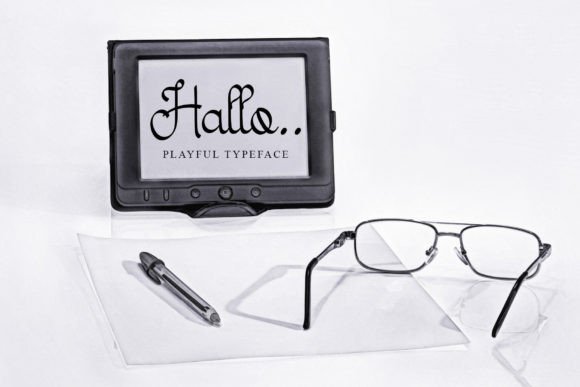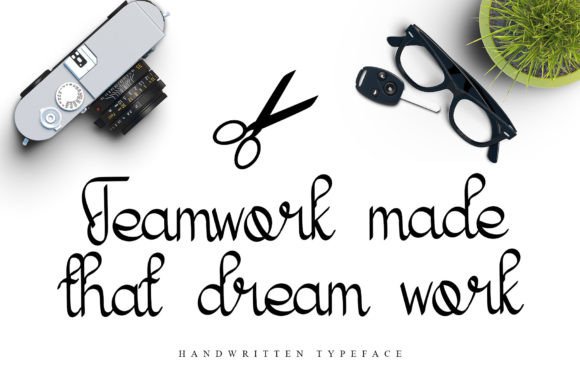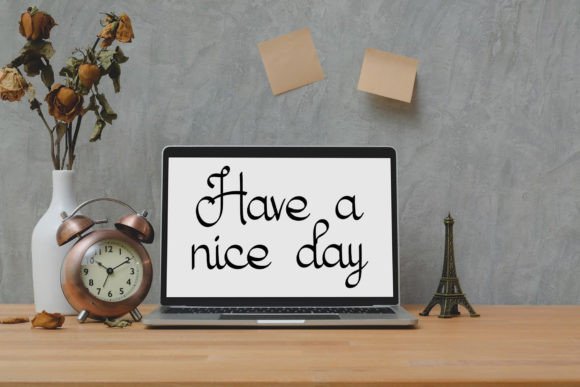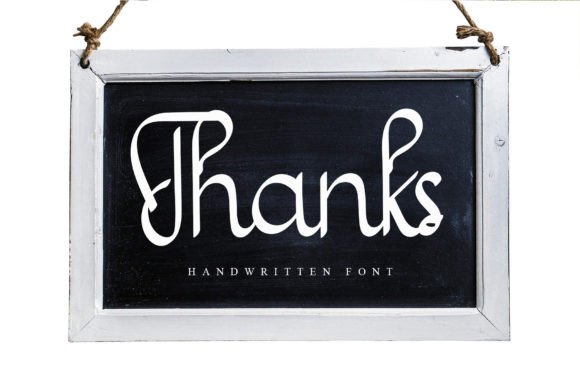
Introducing Hallimah Font: The Perfect Script Font for Creative Projects
Are you looking for a font that can add a touch of personality to your designs? Look no further than Hallimah Font, a beautiful and flowing script font that’s perfect for a variety of creative projects. With its smooth lines and gentle curves, Hallimah creates a relaxed and friendly feel that’s ideal for invitations, cards, and other designs that require a touch of whimsy.
The Characteristics of Hallimah Font
Hallimah Font is a casual script font that’s designed to be both elegant and approachable. Its flowing lines and smooth curves create a sense of movement and fluidity, making it perfect for designs that require a touch of sophistication and whimsy. The font features:
- Smooth lines and gentle curves for a relaxed and friendly feel
- A flowing script style that’s perfect for creative projects
- A casual and approachable tone that’s ideal for invitations, cards, and other designs
Uses for Hallimah Font
Hallimah Font is a versatile font that can be used for a variety of creative projects, including:
- Invitations: Whether you’re planning a wedding, birthday party, or other celebration, Hallimah Font is the perfect choice for creating beautiful and elegant invitations.
- Cards: Add a touch of personality to your greeting cards, thank-you cards, and other correspondence with Hallimah Font.
- Signs and Displays: Use Hallimah Font to create eye-catching signs and displays for your business, event, or exhibition.
- Branding and Packaging: Add a touch of whimsy and personality to your brand’s packaging and marketing materials with Hallimah Font.
Why Designers and Crafters Love Hallimah Font
Hallimah Font has quickly become a favorite among designers and crafters, and for good reason. Here are just a few reasons why:
- Ease of Use: Hallimah Font is easy to read and works well in a variety of sizes, making it perfect for designs that require a clear and legible font.
- Versatility: Hallimah Font can be used for a wide range of creative projects, from invitations and cards to signs and displays.
- Unique Style: Hallimah Font has a unique and distinctive style that’s sure to set your designs apart from the crowd.
Tips for Using Hallimah Font
Here are a few tips for getting the most out of Hallimah Font:
- Pair with Other Fonts: Hallimah Font pairs well with a variety of other fonts, including serif and sans-serif fonts. Experiment with different combinations to find the perfect look for your design.
- Use for Headings and Titles: Hallimah Font is perfect for headings and titles, where its flowing lines and smooth curves can really shine.
- Add a Personal Touch: Use Hallimah Font to add a personal touch to your designs, whether you’re creating invitations, cards, or other materials.
If you’re looking for a font that can add a touch of personality and whimsy to your designs, look no further than Hallimah Font. With its smooth lines, gentle curves, and flowing script style, Hallimah Font is perfect for a variety of creative projects, from invitations and cards to signs and displays. Whether you’re a designer, crafter, or DIY enthusiast, Hallimah Font is sure to become a favorite in your toolkit.